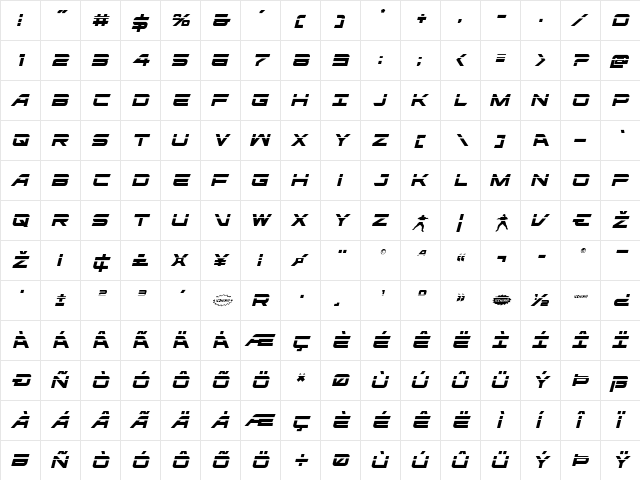
Ghost Clan Laser Italic Italic
Design Context for Ghost Clan Laser Italic Typeface
Ghost Clan Laser Italic is a composed and adaptable typeface that performs quietly and consistently across a wide range of design contexts. The slanted form adds forward momentum and visual energy.